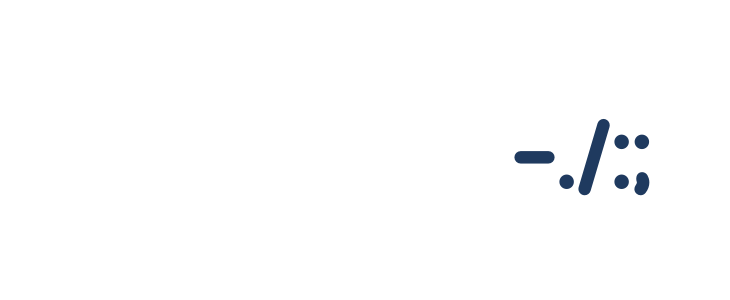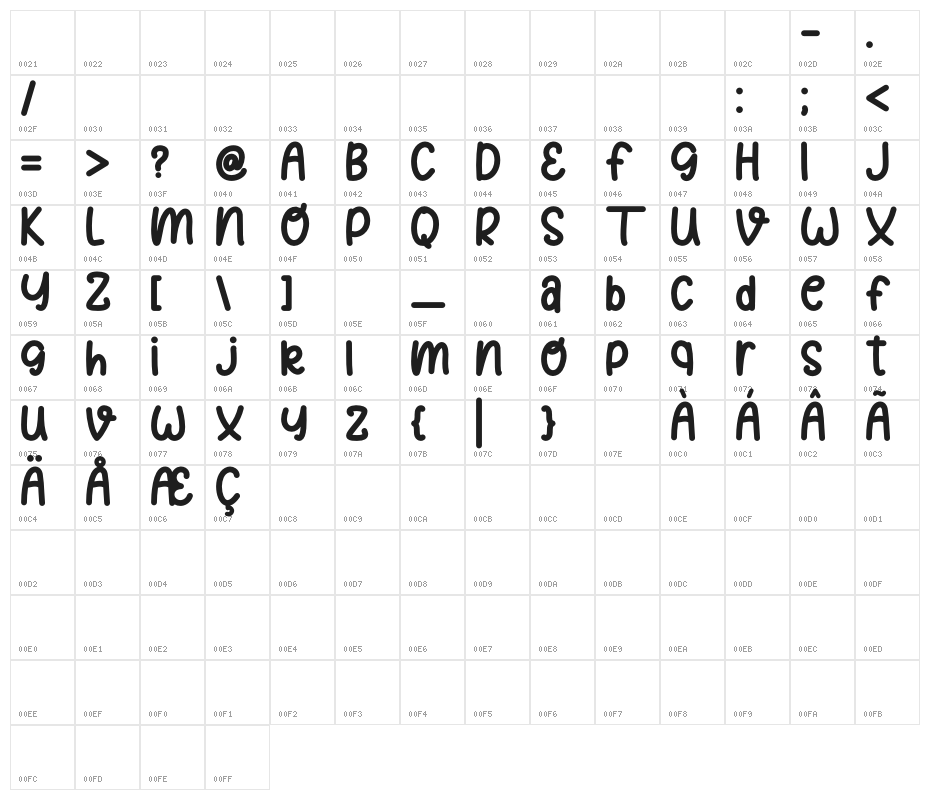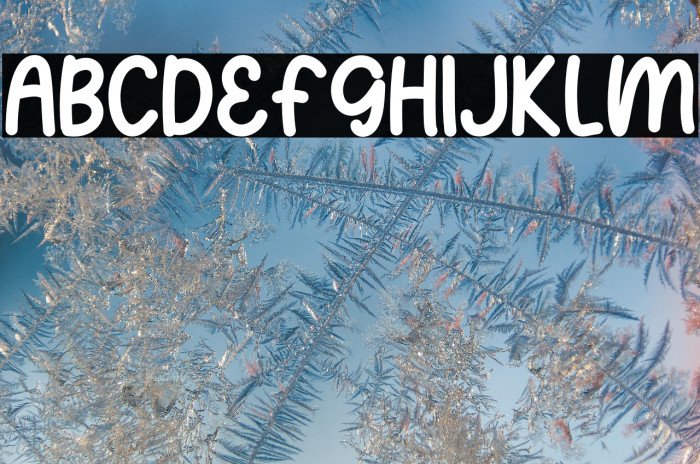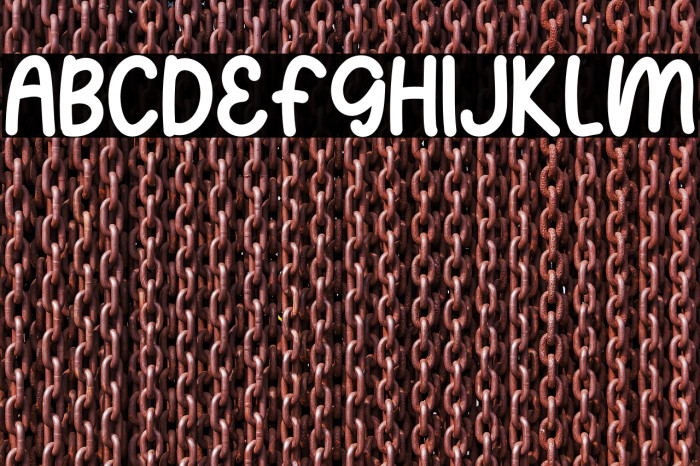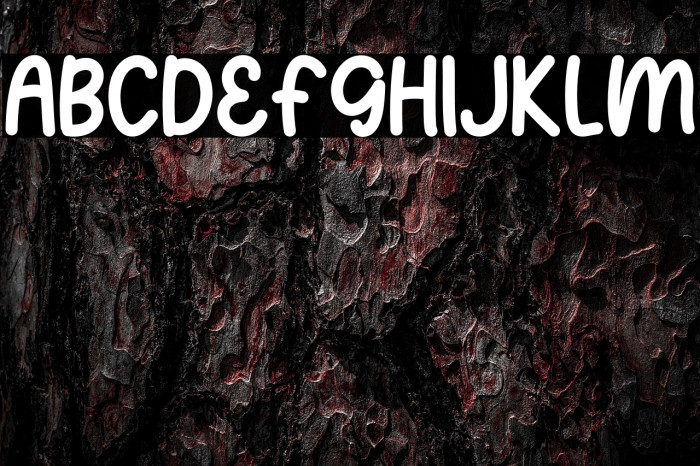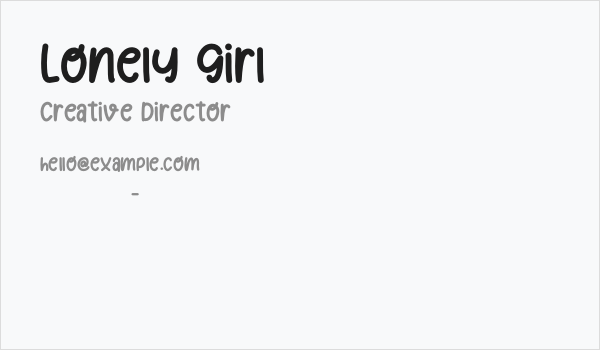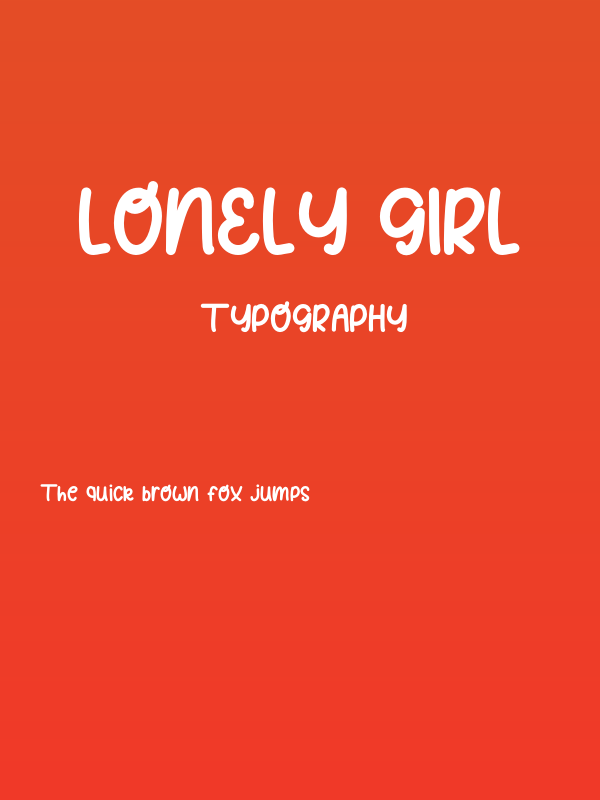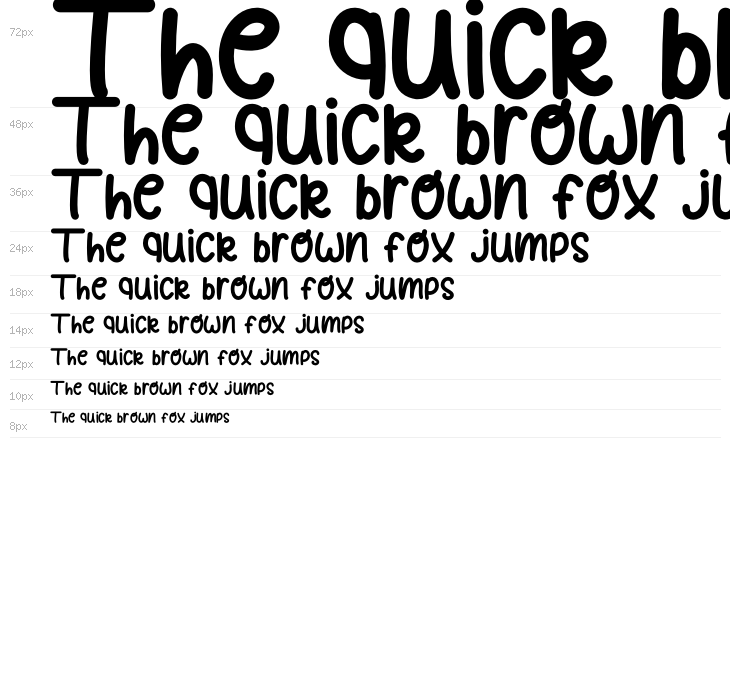
Lonely Girl Font
Lonely Girl Description
This playful and whimsical font features rounded, bold characters with a handwritten style. The letters have a consistent thickness, giving them a uniform appearance that is both friendly and approachable. The curves are smooth, and the overall design is informal, making it suitable for casual and creative projects. The font maintains a consistent baseline, and the characters are well-spaced, ensuring readability. Its unique style adds a touch of personality and charm, making it ideal for projects that require a fun and lively aesthetic.
| Proposed Projects | Ideal for children's books, greeting cards, playful branding, and social media graphics. |